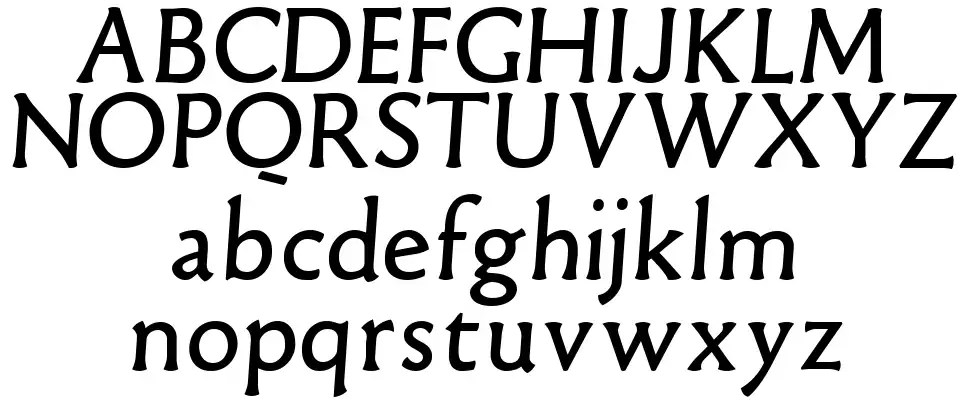
Fonts For Word 07. Ochre is the perfect font for creating gorgeous branding, logos, body text, and more. This free fonts collection also offers useful content and a huge collection of truetype face and opentype font families categorized in alphabetical order.
Ochre Is A New Serif That Is An Instant Classic.